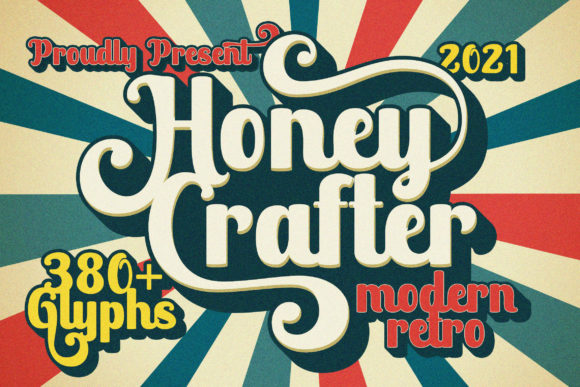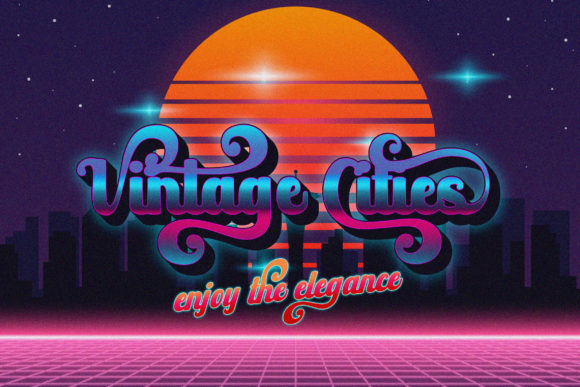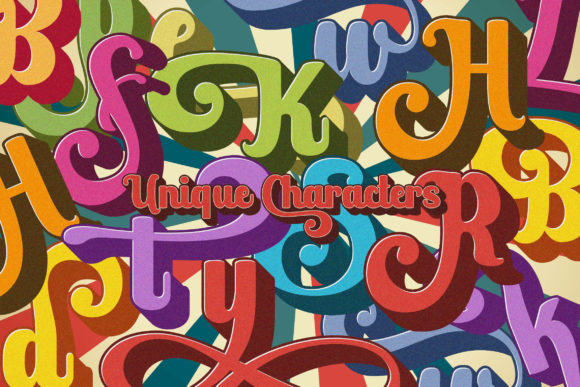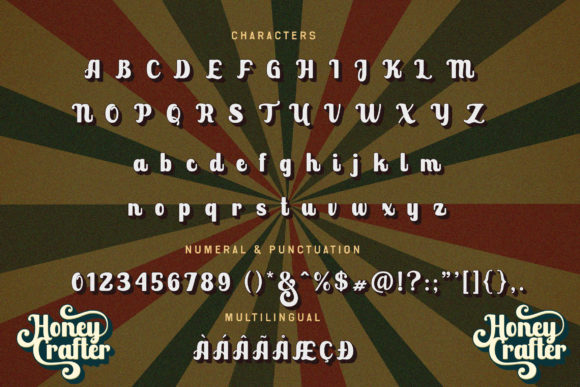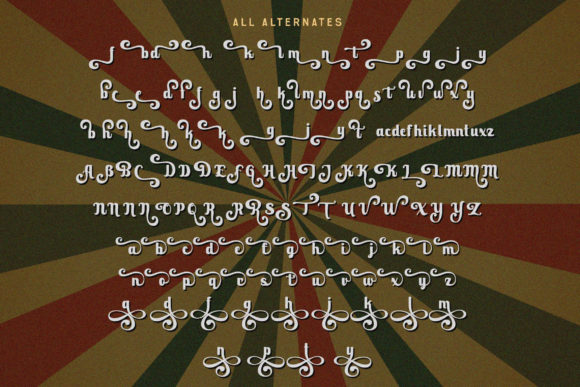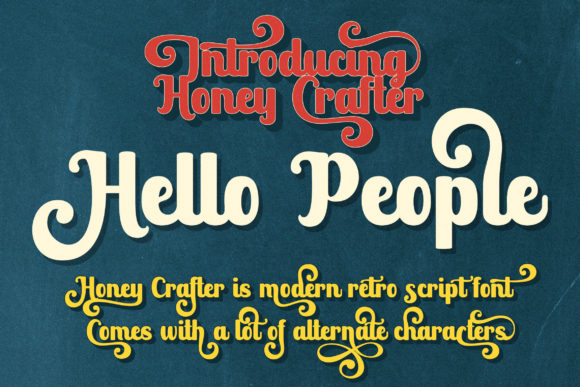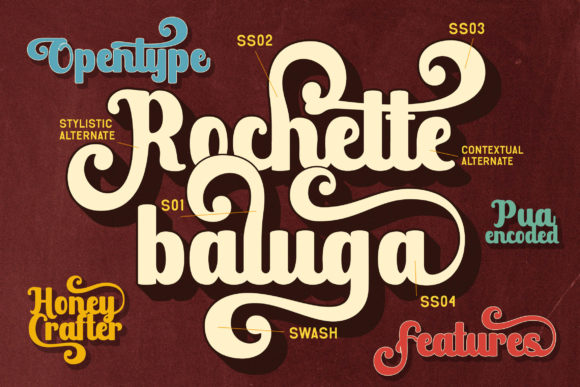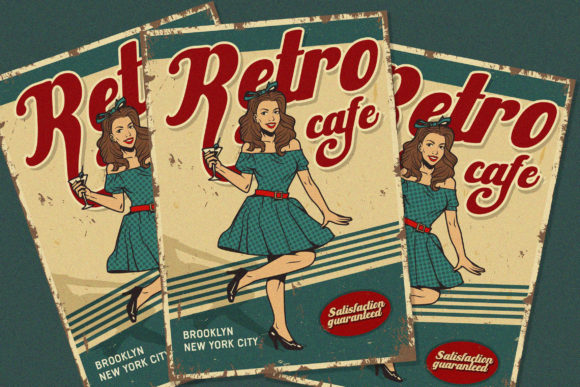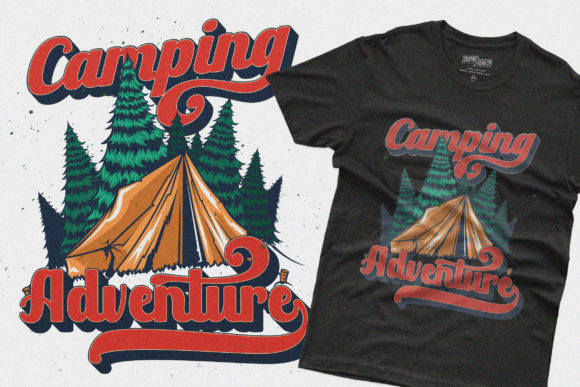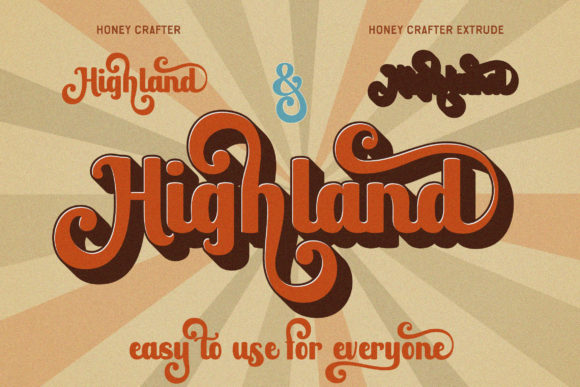
Honey Crafter Font
About Honey Crafter Font
Honey Crafter is a gorgeous and bold handwritten font, crafted to give your headlines and logotype projects a stylish touch. This font reads as strong, confident, and dynamic and can add tons of nostalgic character to your designs. Honey Crafter is PUA encoded which means you can access all of the amazing glyphs and ligatures with ease!